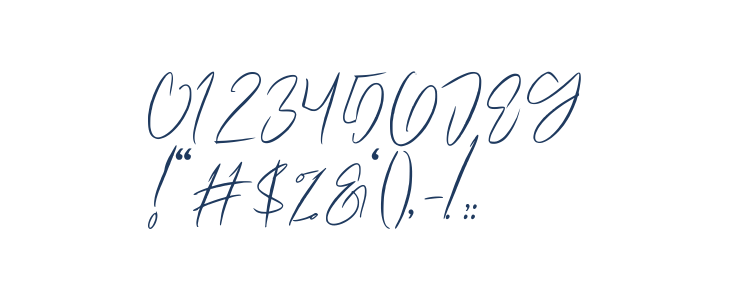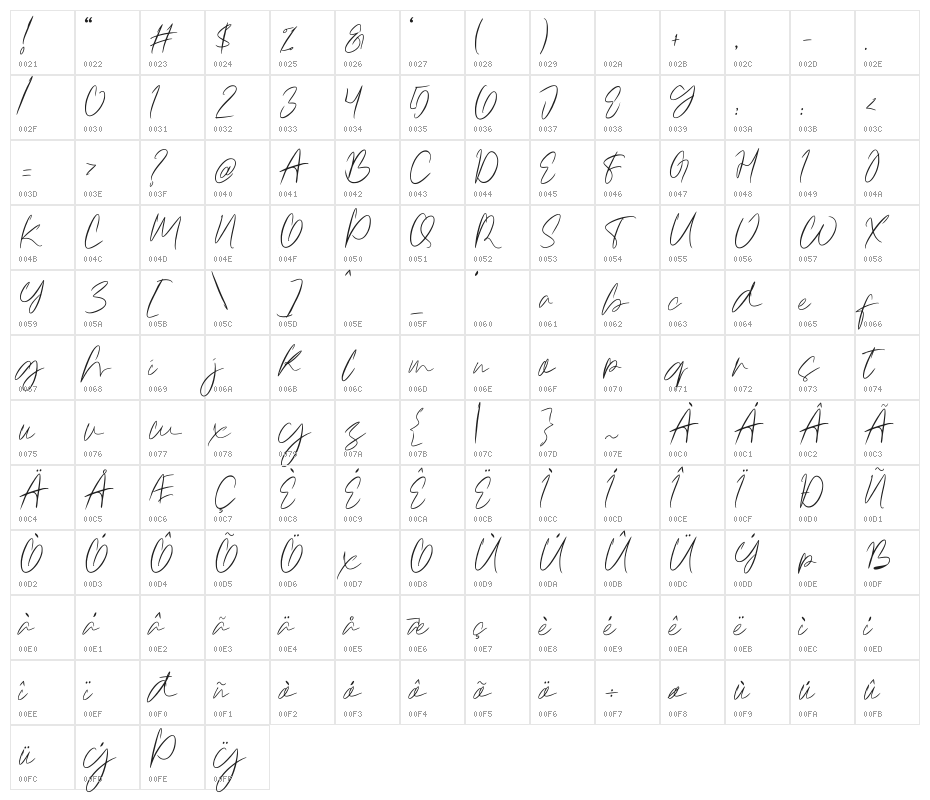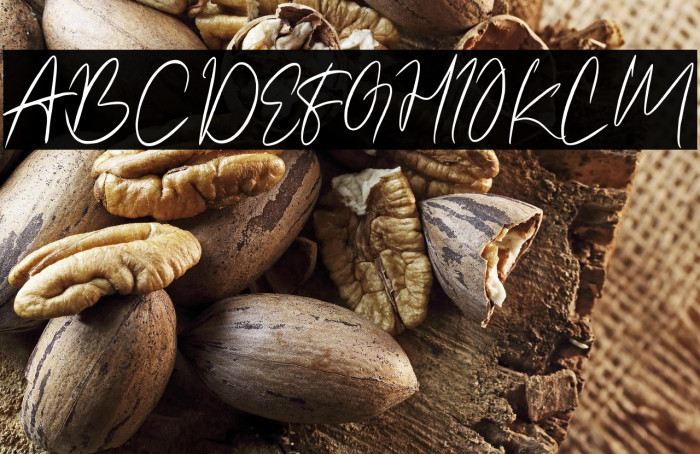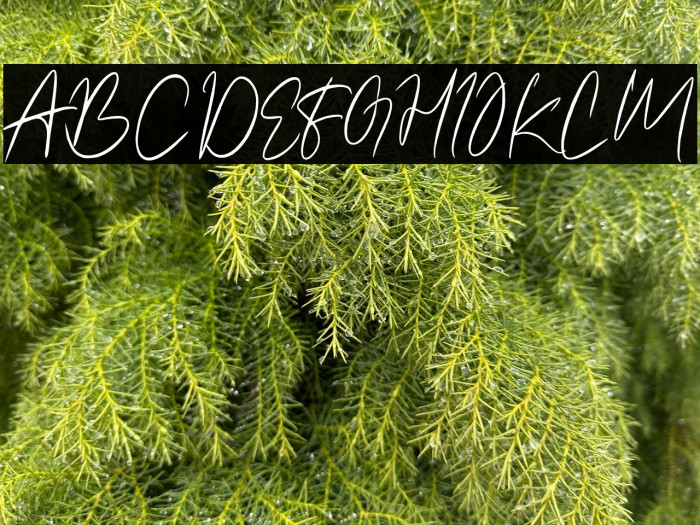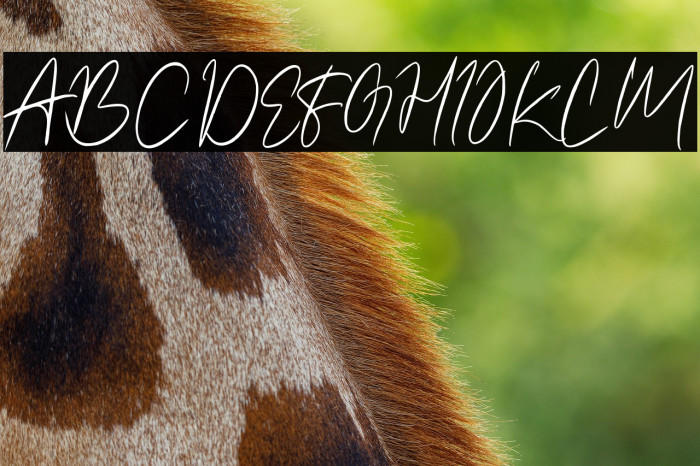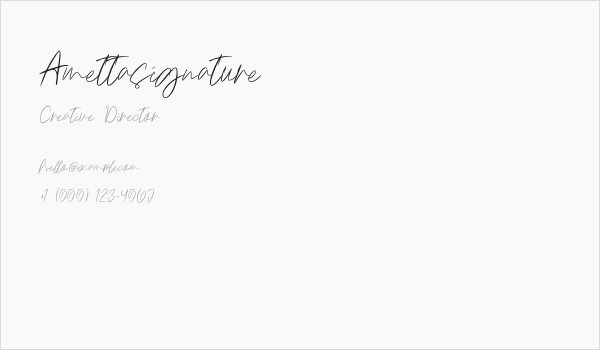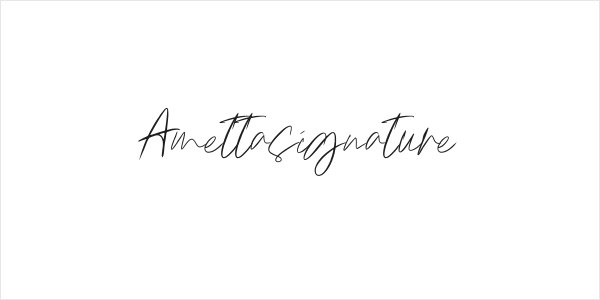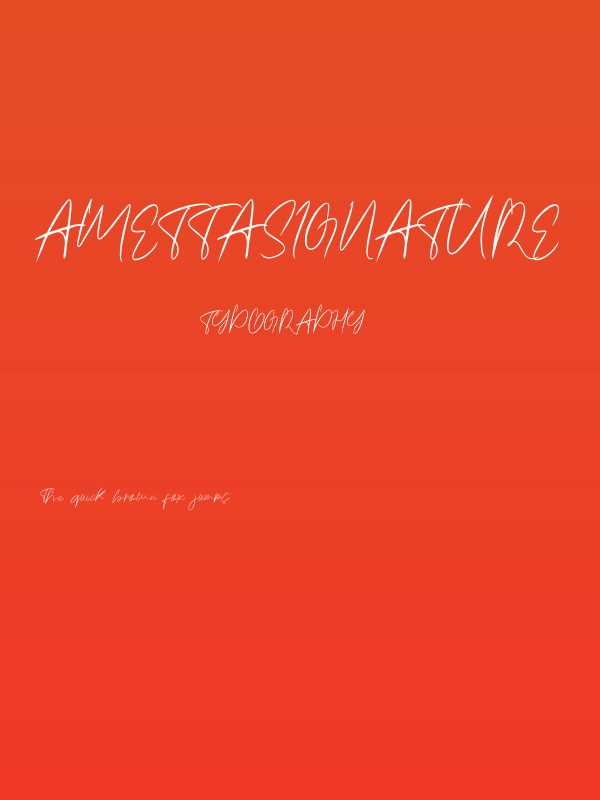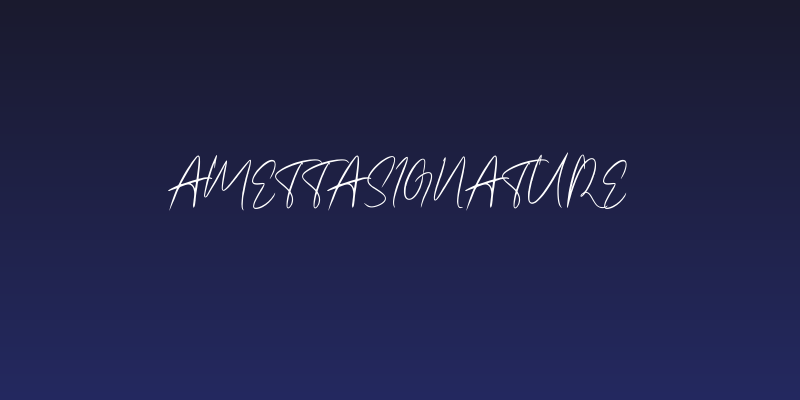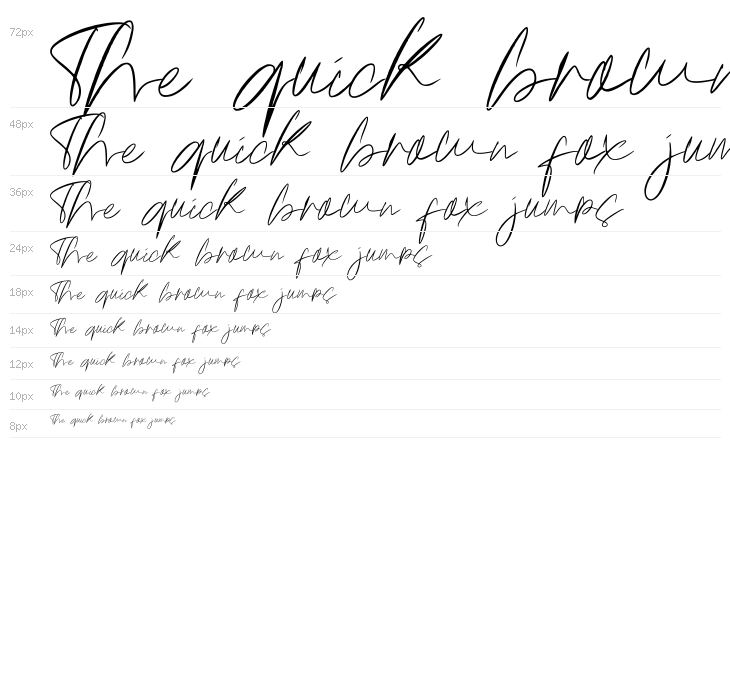
Amettasignature Font
Amettasignature Description
This font exudes a modern, handwritten style with a fluid and elegant script. The letters are connected with smooth, flowing lines, giving it a personal and artistic touch. The uppercase letters are bold and expressive, while the lowercase letters maintain a consistent flow, enhancing readability. The numbers and special characters are crafted with the same attention to detail, ensuring a cohesive look across all elements. The overall design is both sophisticated and approachable, making it suitable for a variety of creative projects.
| Proposed Projects | Ideal for wedding invitations, personal branding, greeting cards, and artistic projects. |